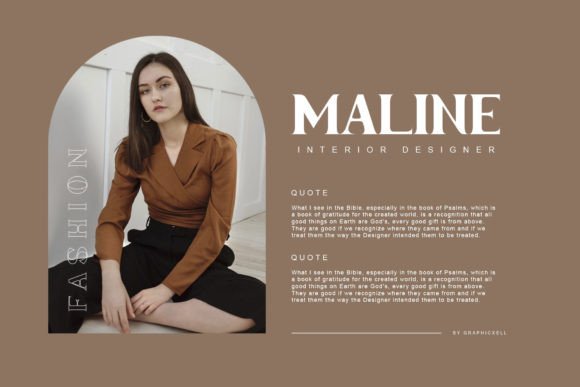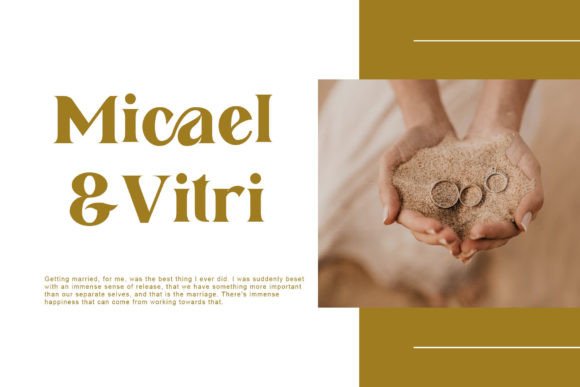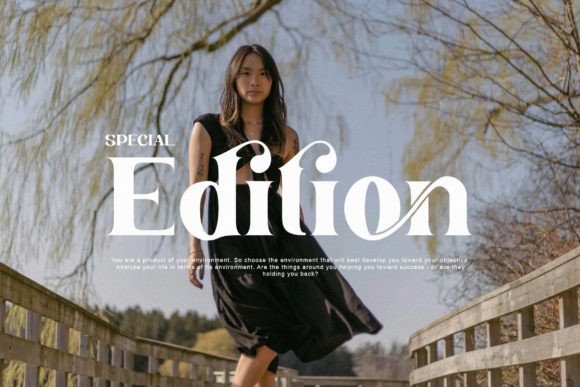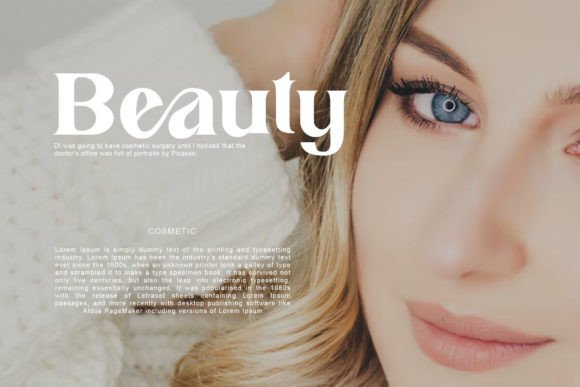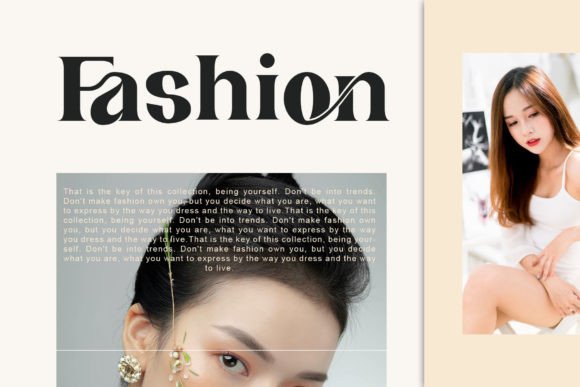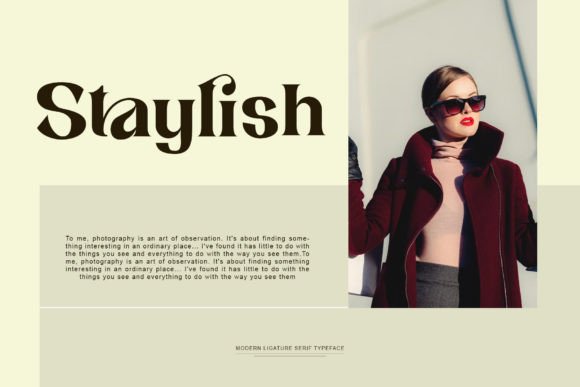
The Andhita Font: A Designer’s New Best Friend
I’ll never forget the time I was working on a project for a client who wanted a vintage, elegant look. I had spent hours scouring the internet for the perfect font, but nothing seemed quite right. That was until I stumbled upon the Andhita font. ✨ It was love at first sight! The beautiful serif lines and classic feel instantly elevated my design, and my client was thrilled with the result.
An Honest Review of Andhita
- ✨ Elegant serif lines that add a touch of sophistication to any design
- ✅ Extensive character set, including OpenType features and glyphs
- ✅ Works beautifully for both digital and print projects
While Andhita is an amazing font, there are a few things to keep in mind. 🤔 For example, some users have reported issues with kerning, particularly when using the font at very large or very small sizes. ⚠️ Additionally, the font doesn’t come with a built-in italic version, so you’ll need to use a separate font or create your own italic style.
The Story Behind Andhita
Andhita was designed by a team of typographers who wanted to create a font that was both elegant and versatile. Inspired by classic serif fonts, they crafted Andhita with attention to detail and a passion for beautiful design. The result is a font that’s perfect for designers, crafters, and creative hobbyists alike.
| Font Name | Andhita Font |
| Author | Graphicxell |
| What is the Andhita font best used for? | Andhita is a versatile font that’s perfect for a wide range of projects, from digital designs to print materials. |